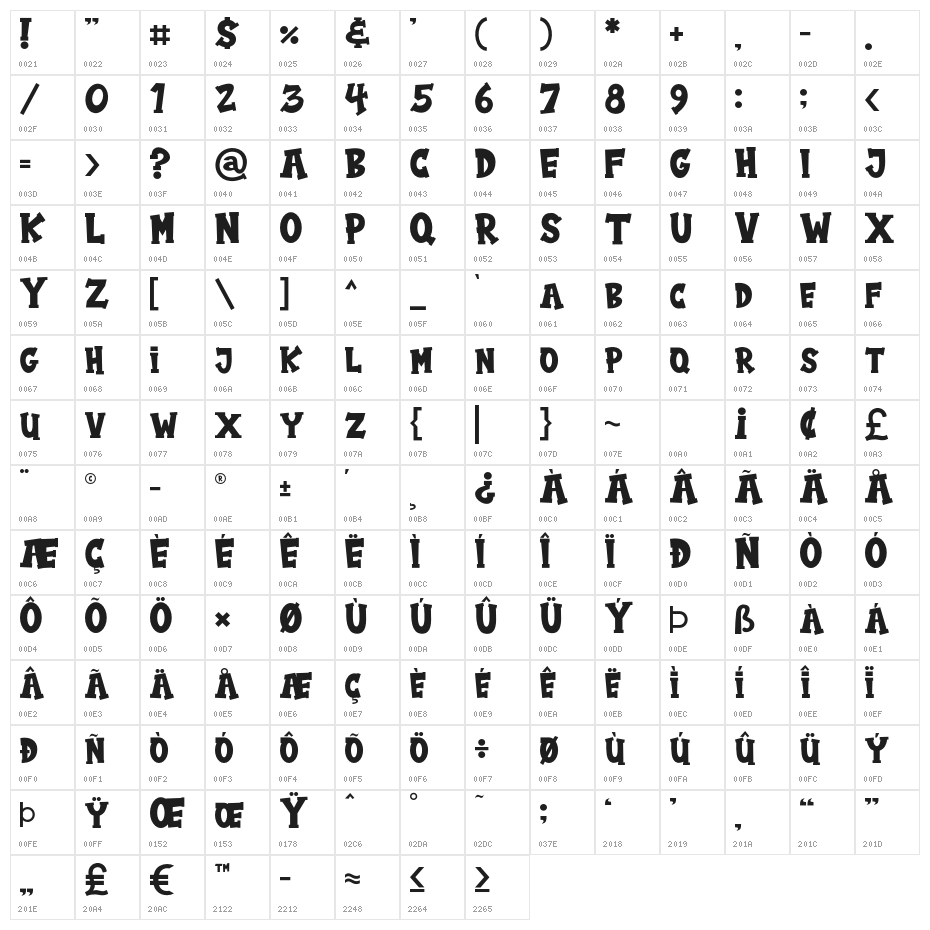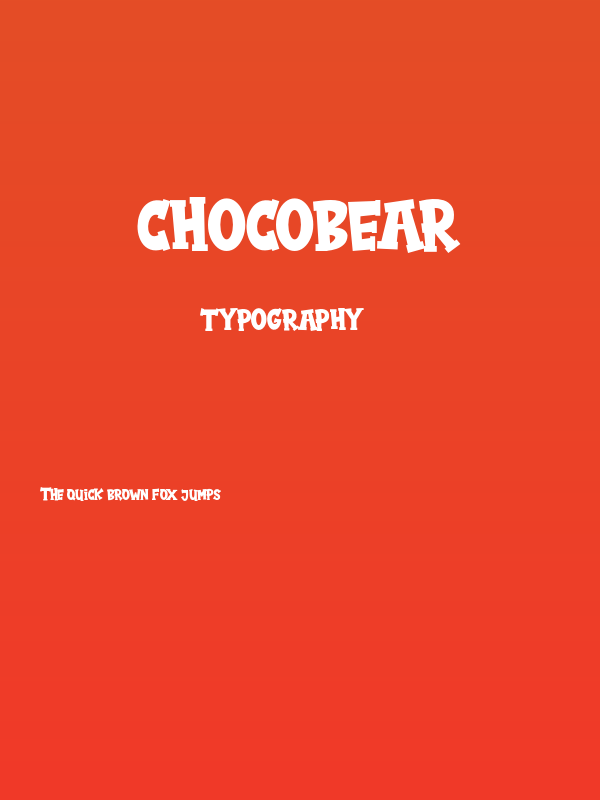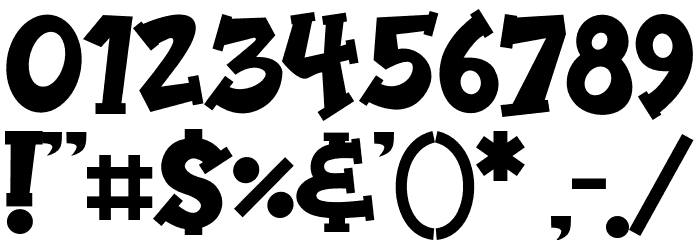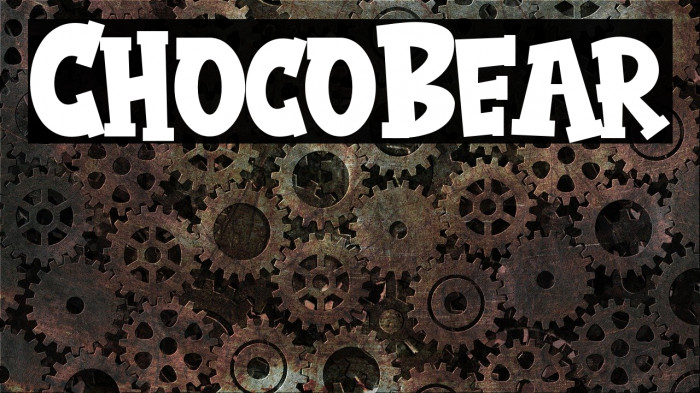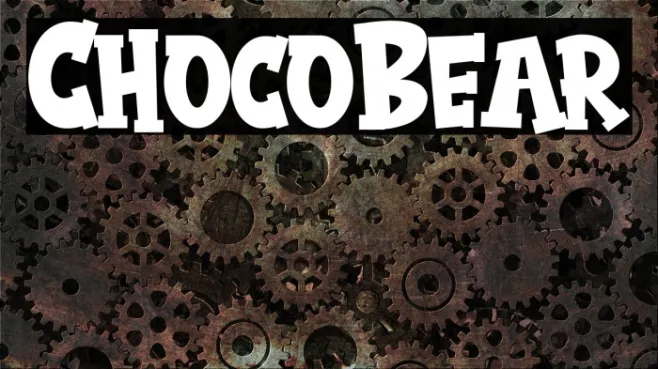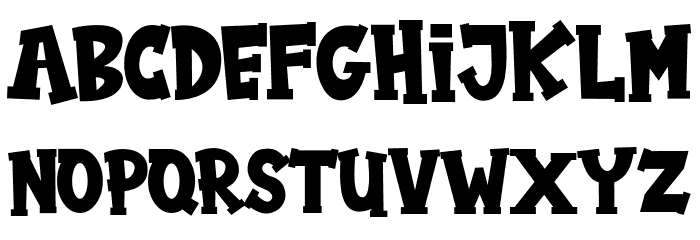
ChocoBear Font
ChocoBear Description
This playful and bold font features a whimsical design with exaggerated curves and angles, giving it a fun and energetic appearance. The characters are thick and rounded, with a slightly irregular shape that adds to its charm. The uppercase and lowercase letters maintain a consistent style, while the numbers and special characters are equally expressive. This font is perfect for projects that require a lively and engaging look, such as children's books, posters, or party invitations.
| Overall Style | Playful, Energetic, Whimsical |
| Proposed Projects | Ideal for children's books, playful posters, party invitations, and fun branding projects. |